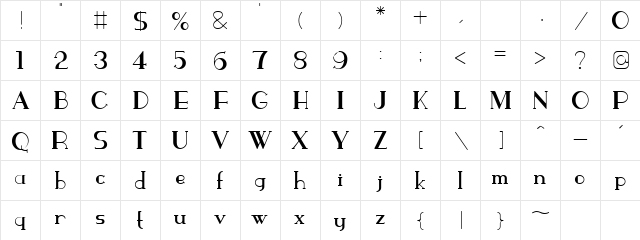
ParismatchRegular Regular
Design Context for ParismatchRegular Typeface
ParismatchRegular is a composed and adaptable typeface that performs quietly and consistently across a wide range of design contexts.